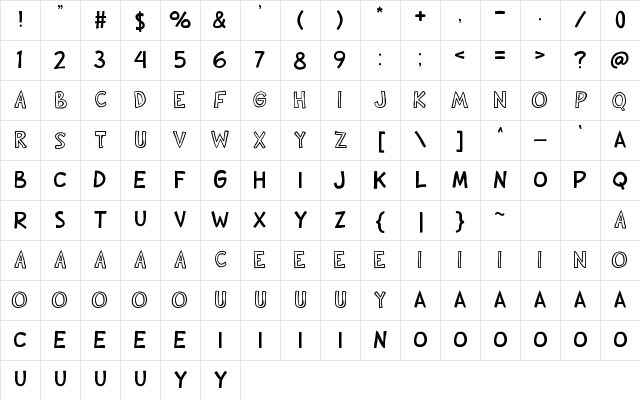
VOYAGE Regular Free Font
VOYAGE Regular
Foundry: TOKOKOO
Designer: TOKOKOO TEAM
Design Context for VOYAGE
VOYAGE is a composed and adaptable typeface that performs quietly and consistently across a wide range of design contexts.
Pro Tip: Use VOYAGE in both headline and body roles to test its range before committing to a single application.